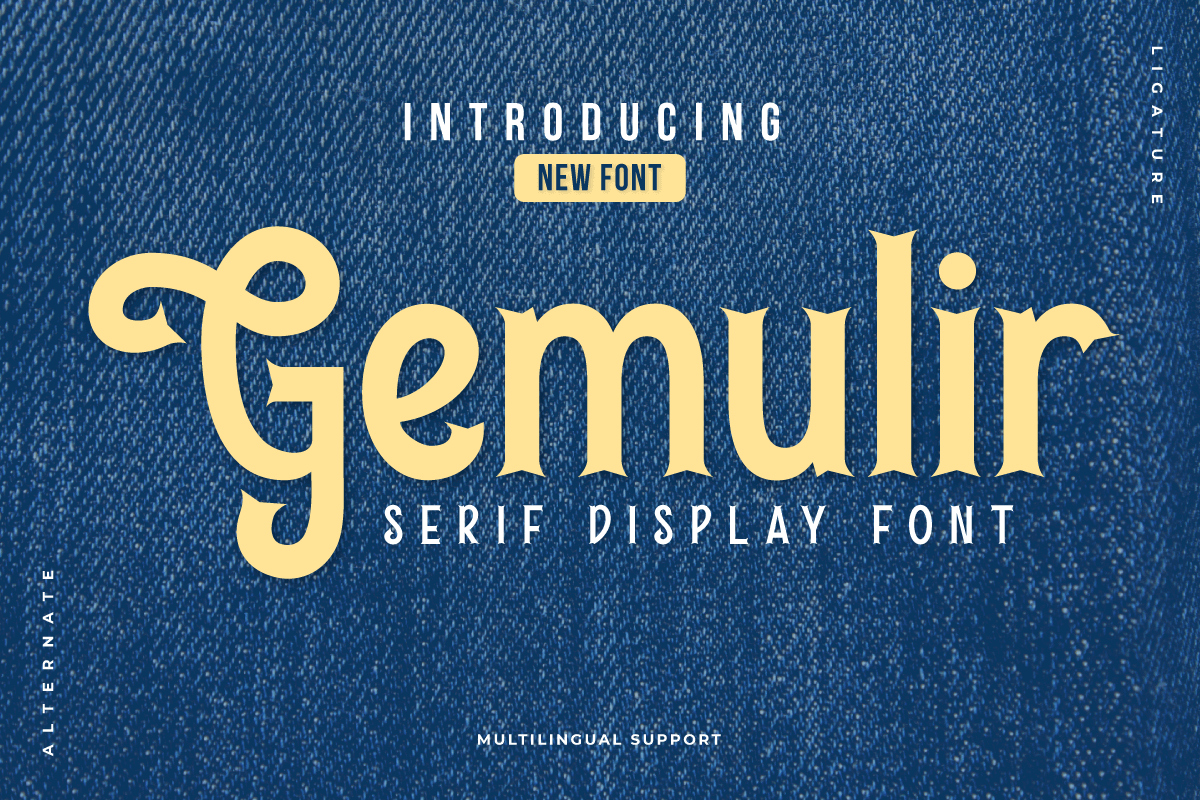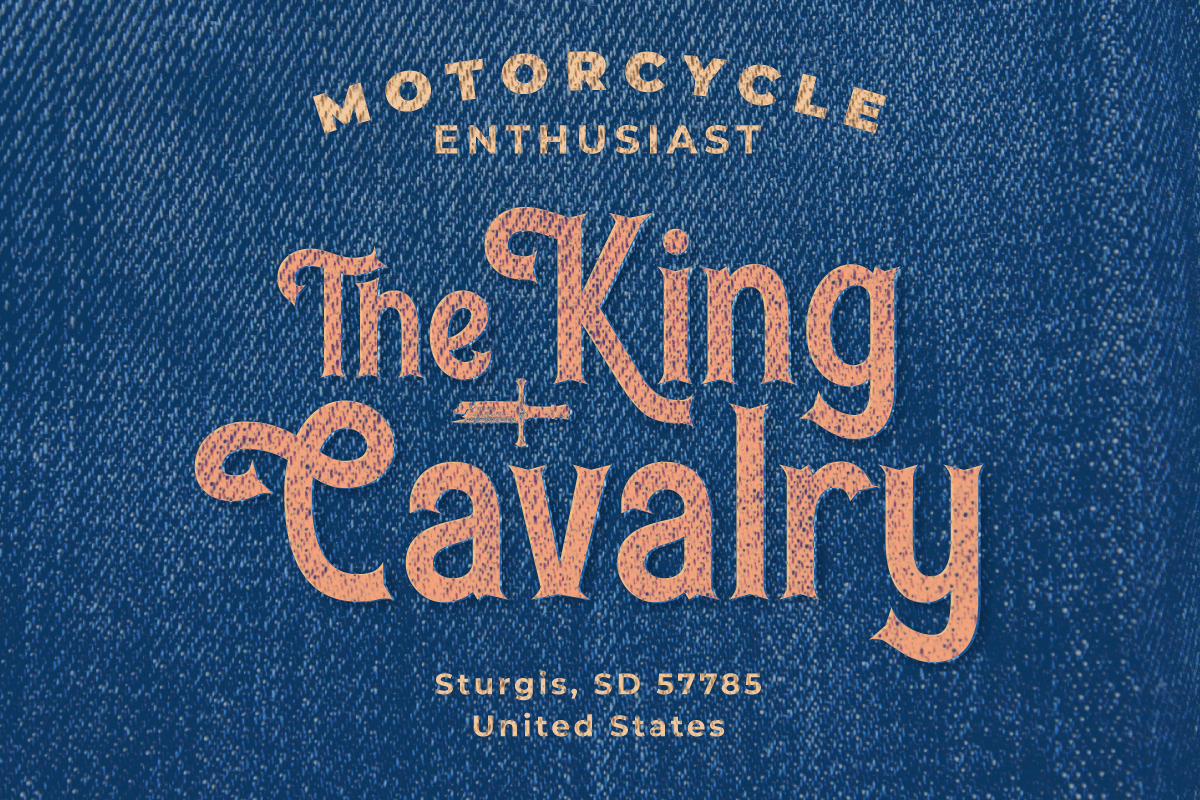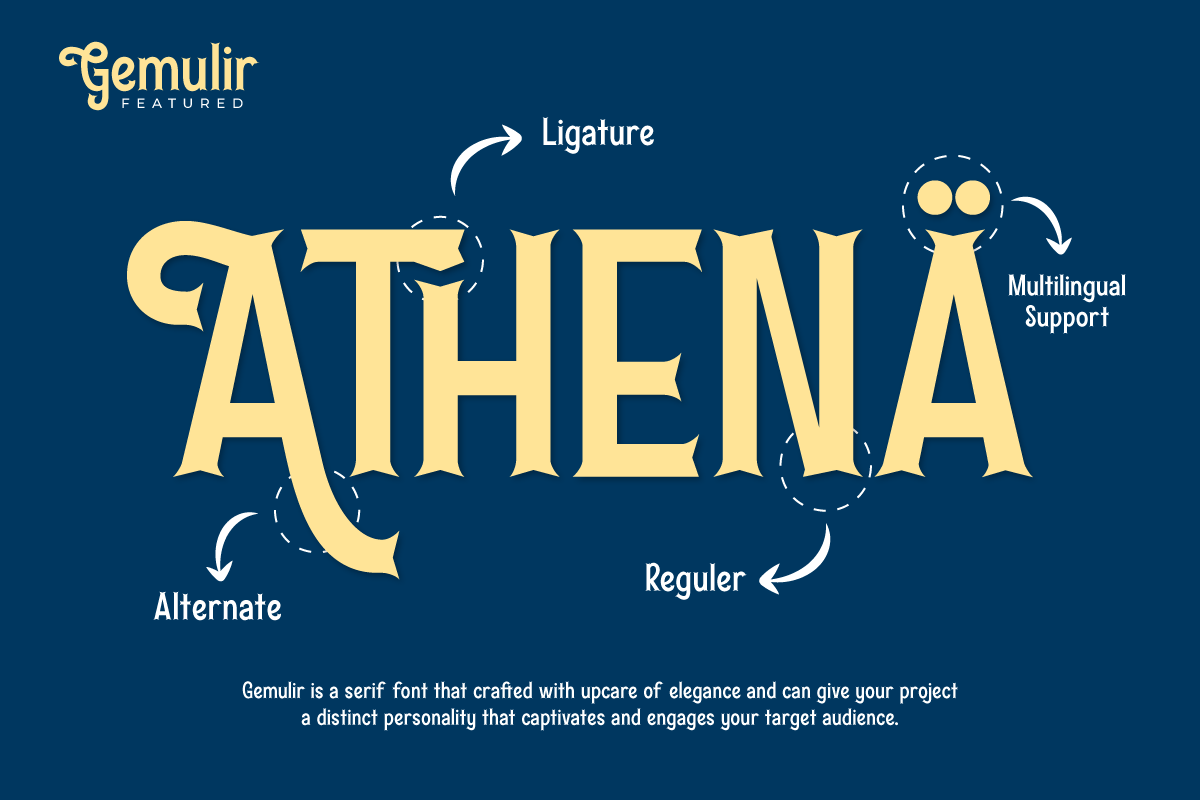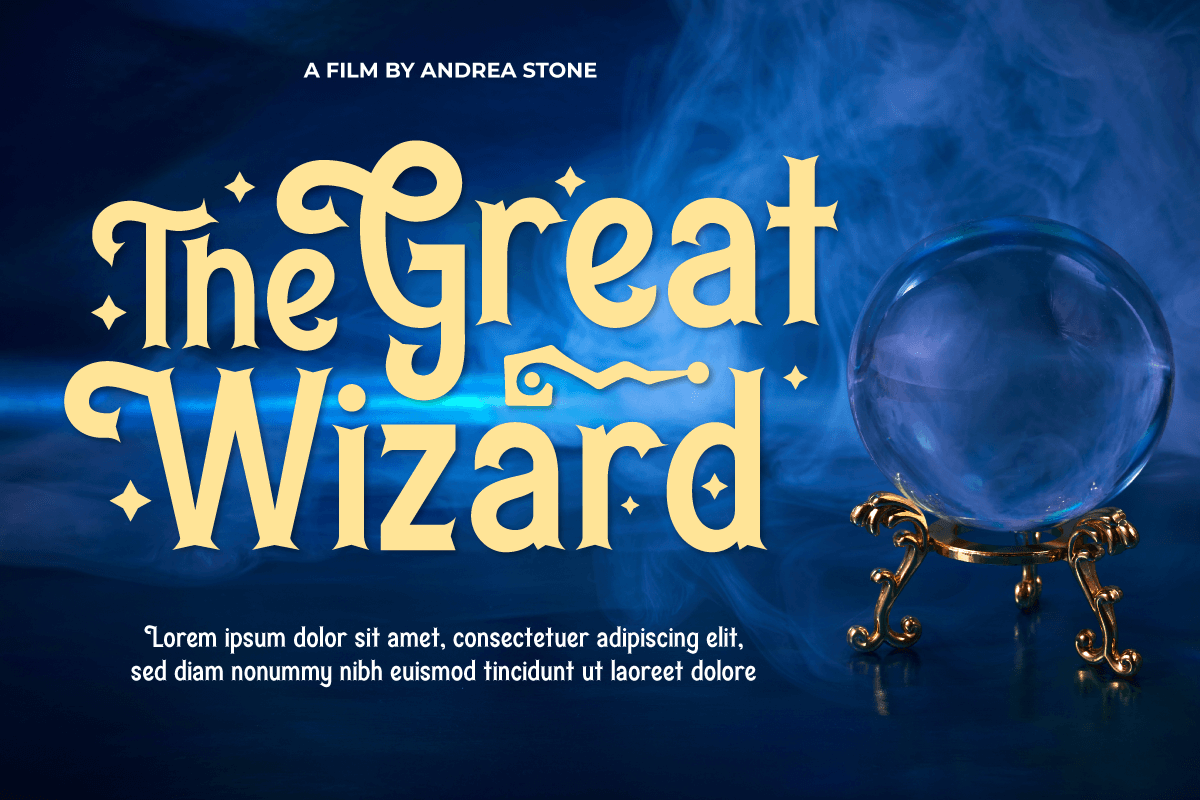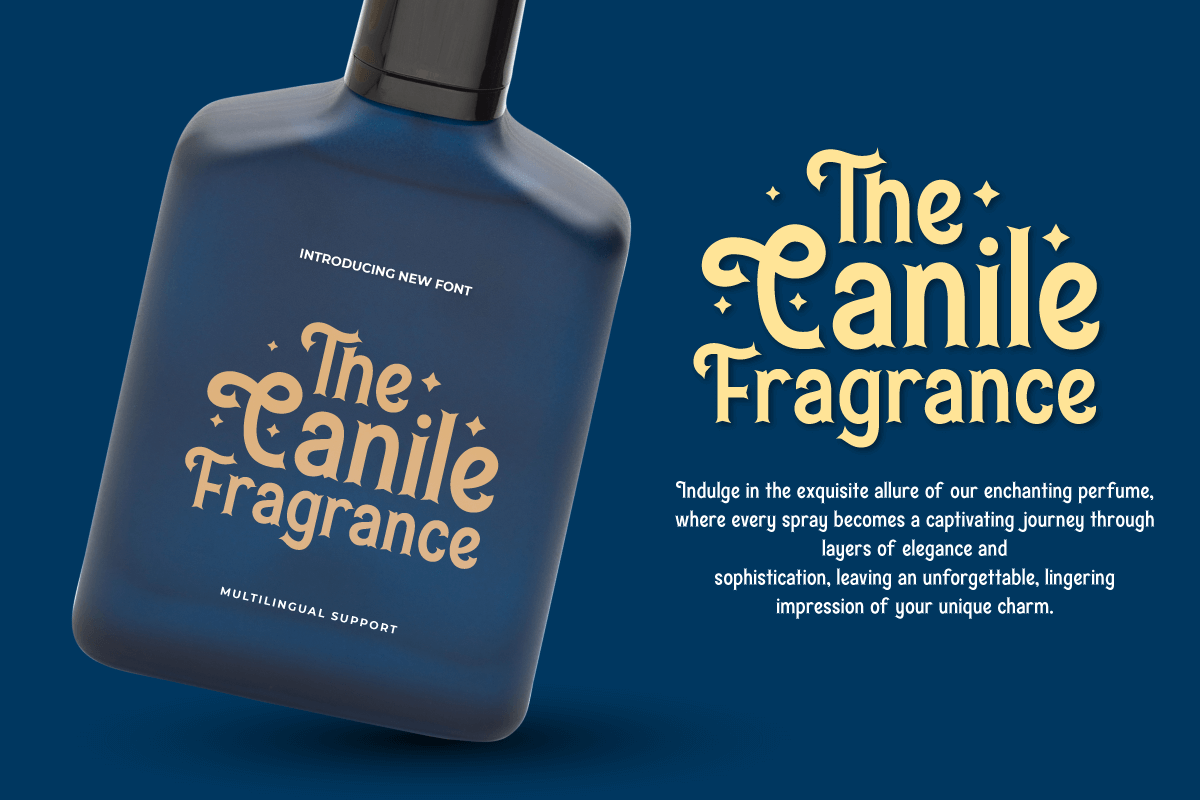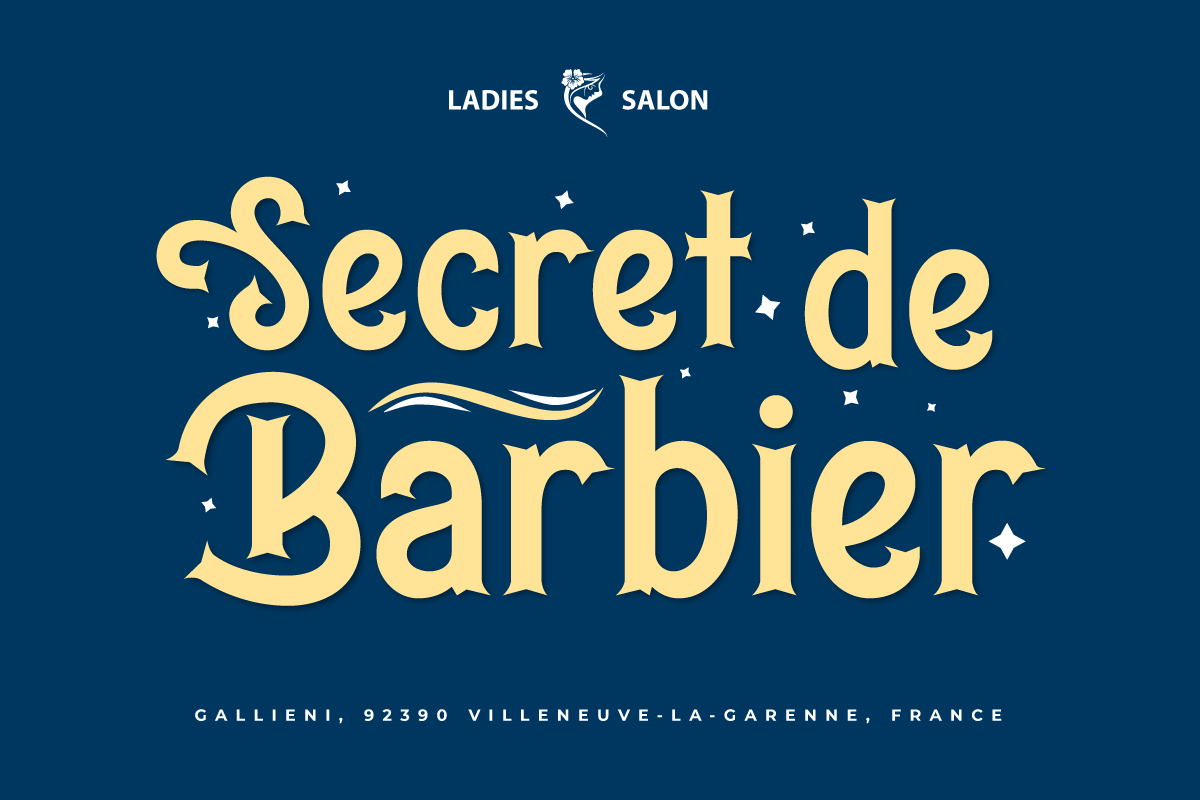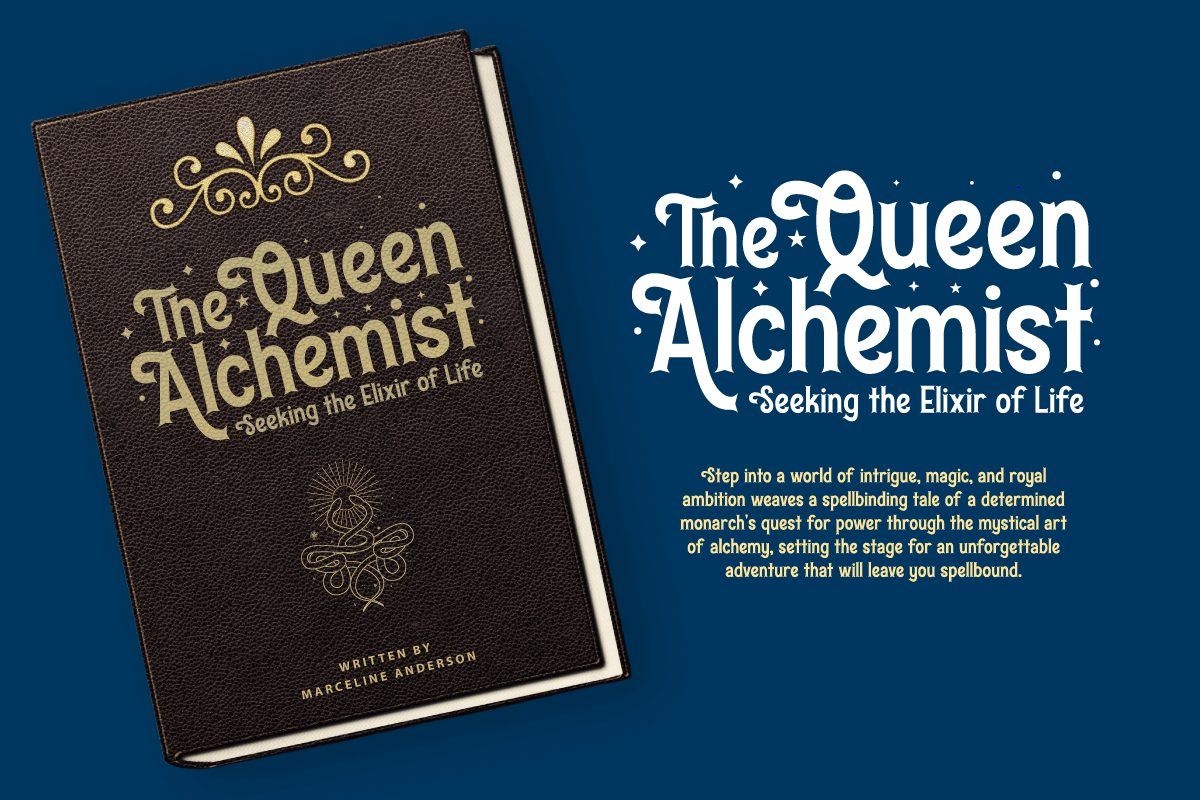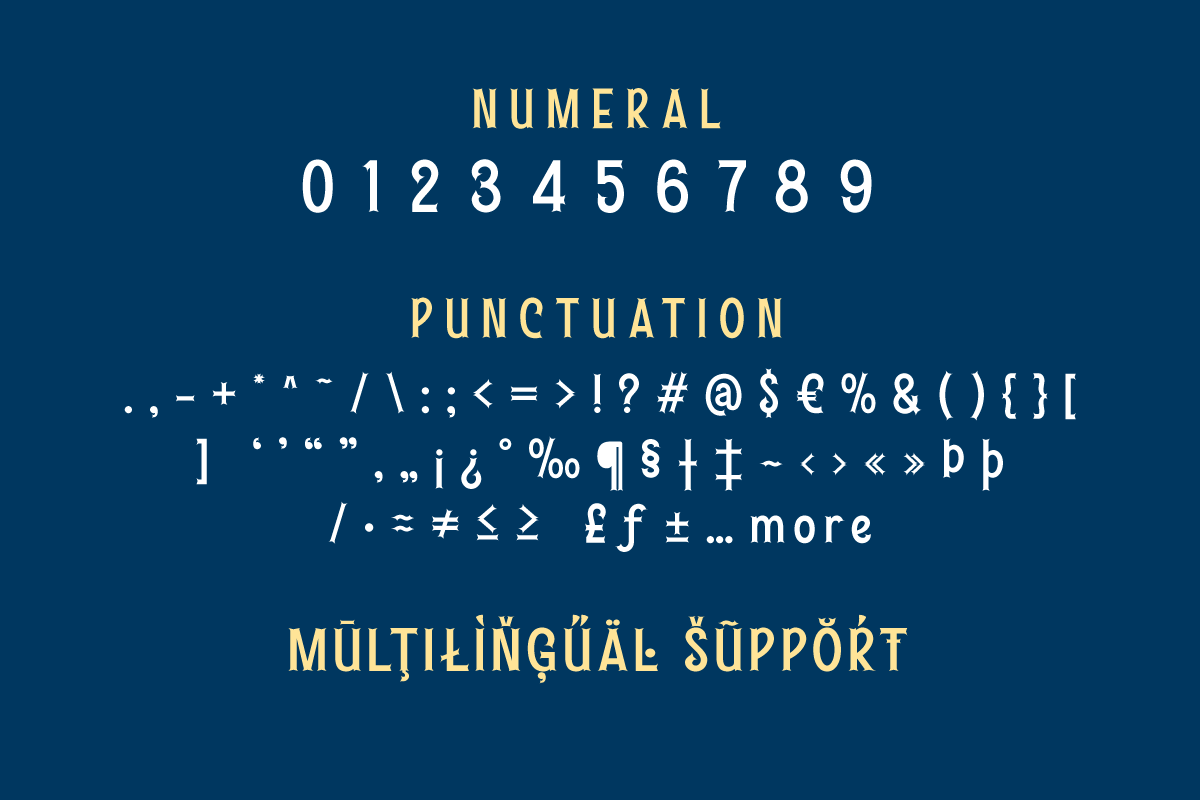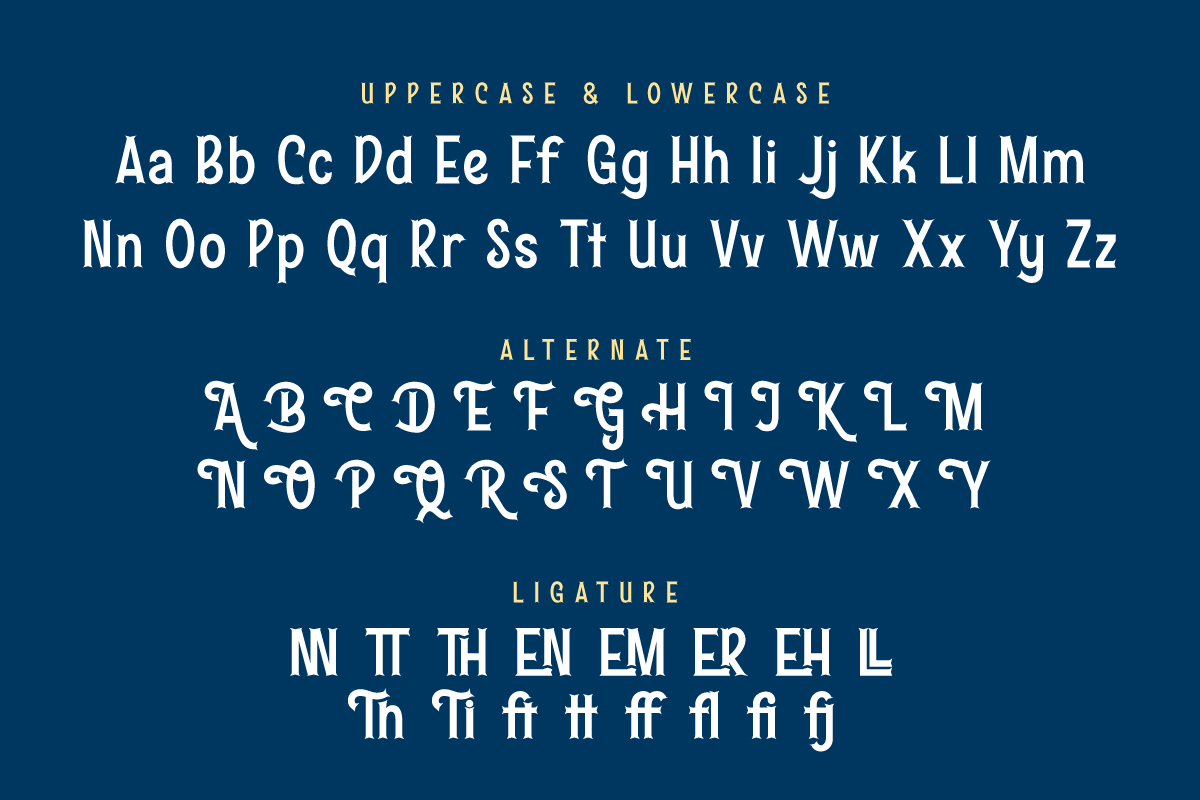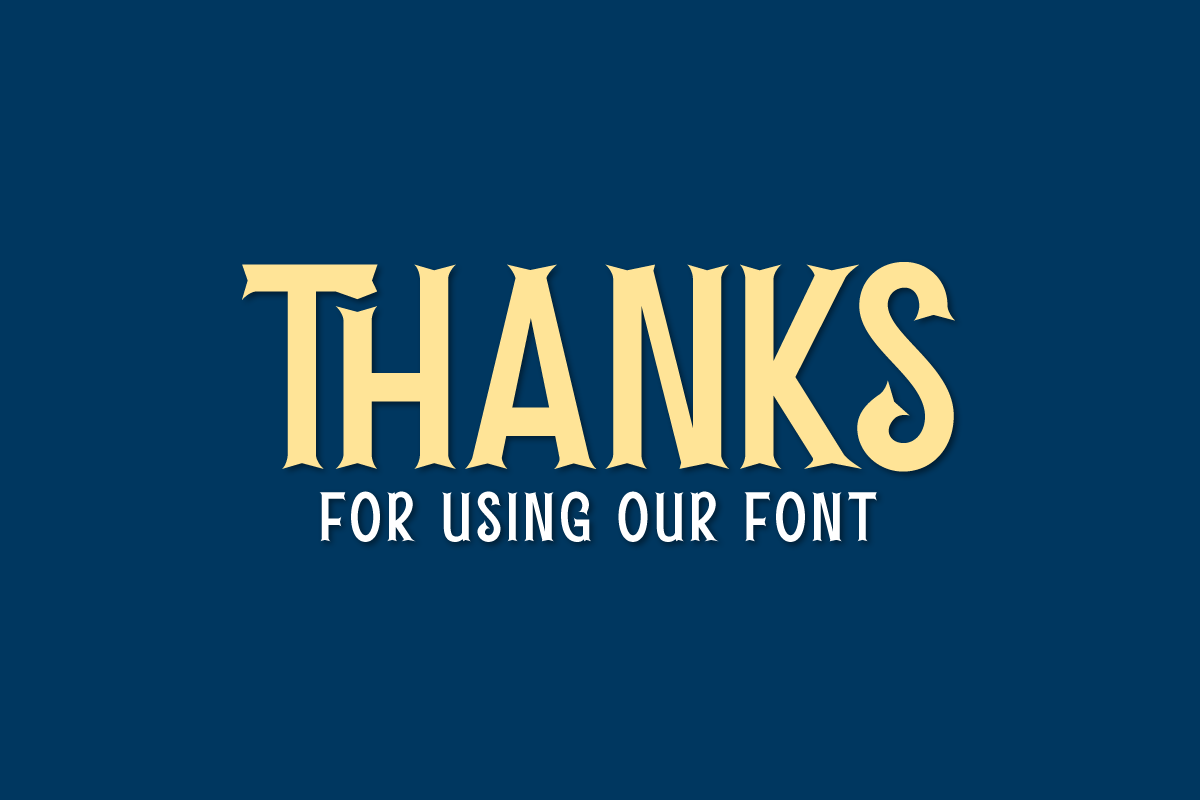
Gemulir – Serif Classic Font
Gemulir is the embodiment of the beauty of classic serif fonts. With smooth lines and elegant character shapes, this font brings a timeless and classy look to any project. Gemulir gives you the ability to create luxurious and memorable documents, promotional materials or web designs.
Gemulir’s key features include its ability to customize various types of projects. From use in formal documents to use in branding designs, this font always provides a consistent and professional appearance.
Gemulir is the perfect choice for those who appreciate classic beauty in design. With the ability to convey messages elegantly and powerfully, this font will take your projects to the next level. So, don’t hesitate to choose Gemulir and let your designs shine with classic elegance.